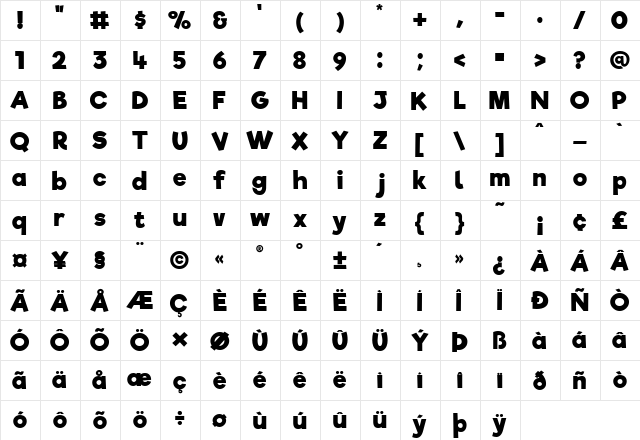
Riffic Free Bold
| Foundry | inkyotter design |
| Designer | Inkyotter Design |
Design Context for Riffic Free Typeface
Riffic Free offers clean, dependable letterforms without strong stylistic allegiance, making it a practical choice for designers who need flexibility. Its bold stroke weight gives it real presence on the page.